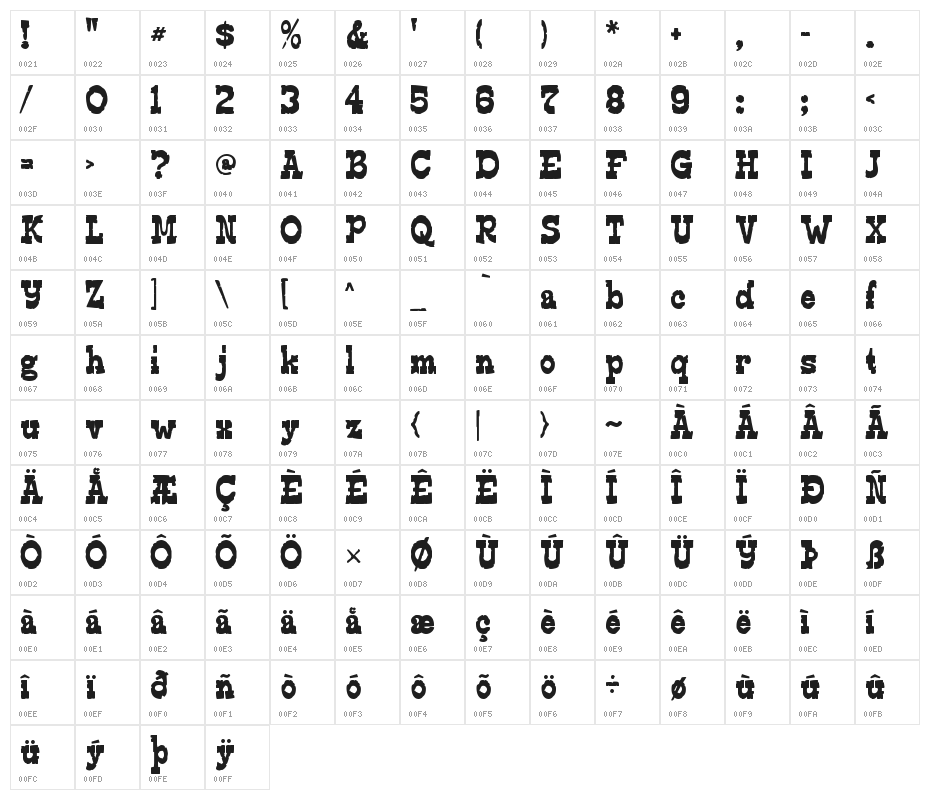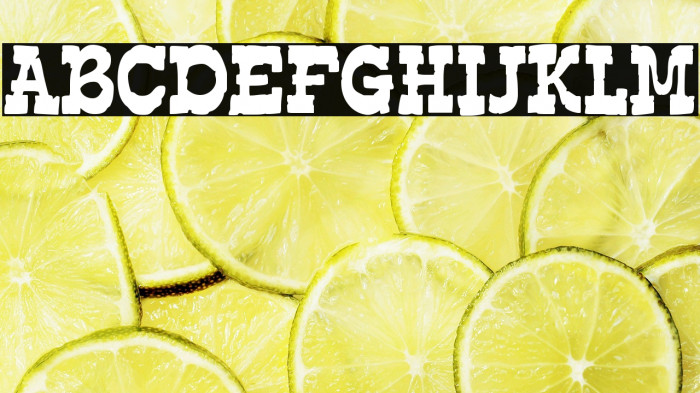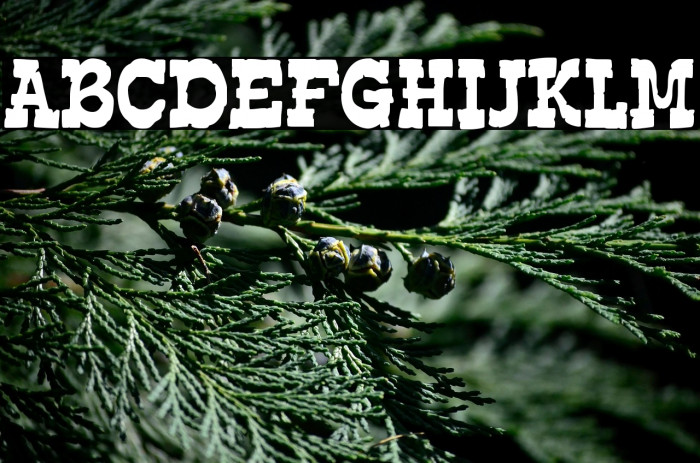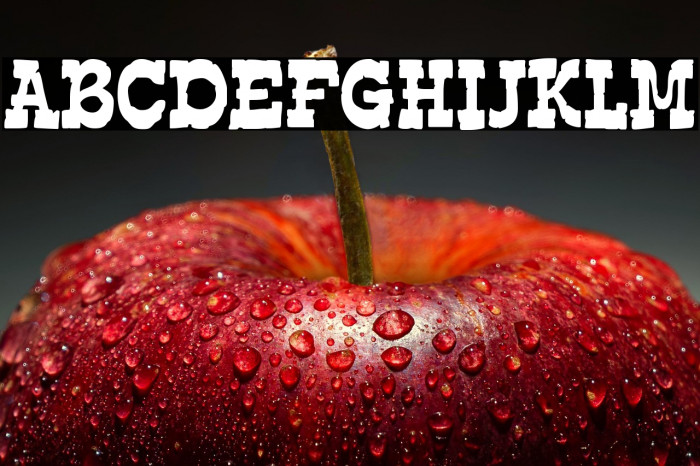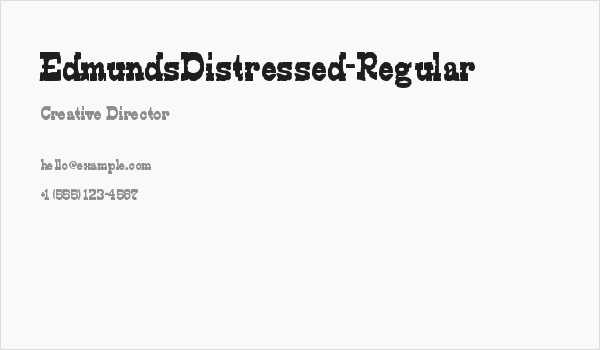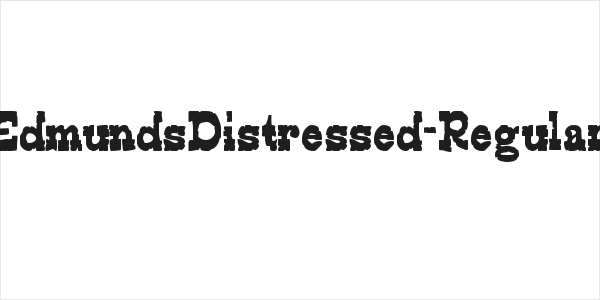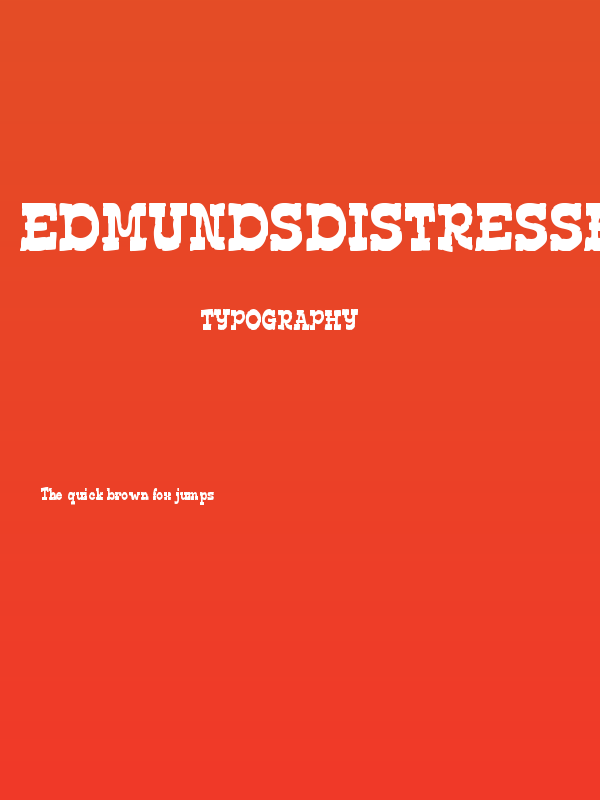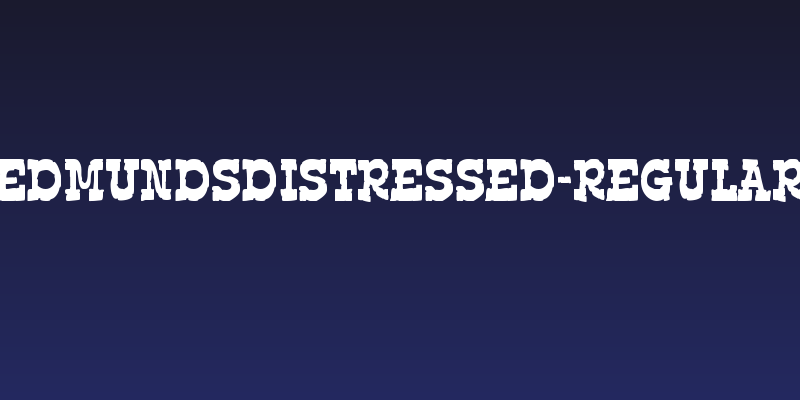
EdmundsDistressed-Regular Font
EdmundsDistressed-Regular Description
This font features a rugged, distressed style that gives it a vintage and worn appearance. The characters are bold and have a rough texture, making them stand out with a unique personality. The uppercase and lowercase letters maintain a consistent design, with slightly uneven edges that add to the distressed effect. Numbers and special characters follow the same stylistic approach, ensuring uniformity across all glyphs. This font is ideal for projects that require a rustic or retro feel, such as posters, branding, and packaging. Its bold presence makes it suitable for headlines and titles, where it can capture attention effectively.
| Proposed Projects | Ideal for vintage-themed posters, branding, packaging, and headlines. |